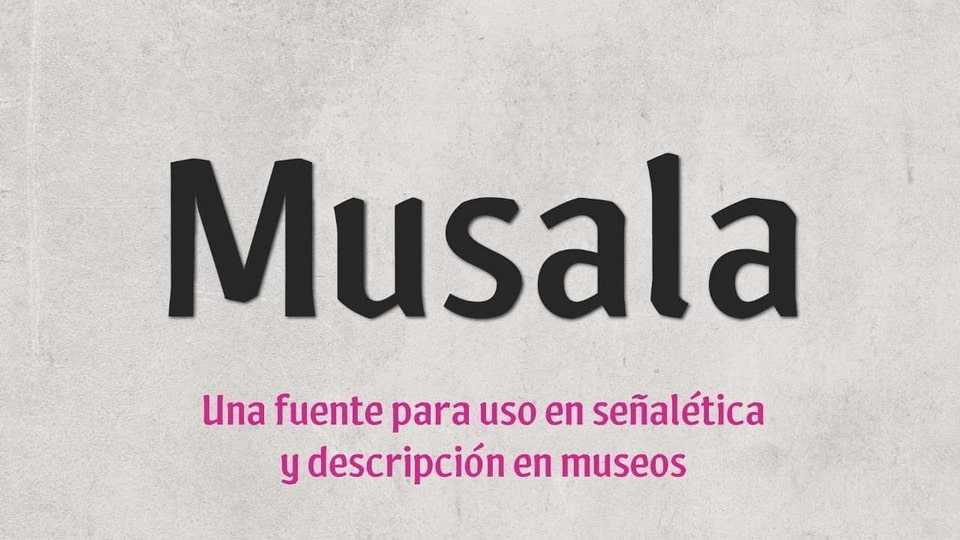
Download Musala font, a typeface made up of a series of fonts intended for use in modern art museums, as an essential part of signage programs and room texts. Musala typeface is inspired by a balance between calligraphy, stone engraving, and various works of modern art.